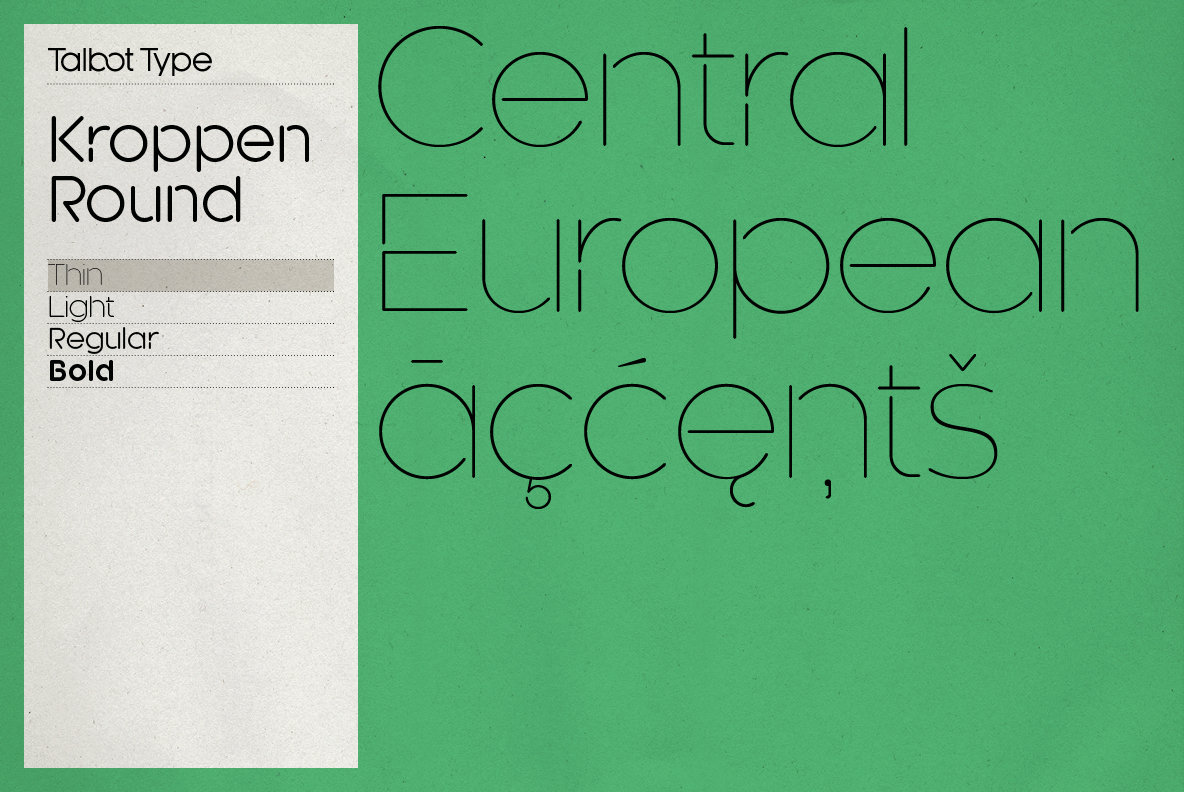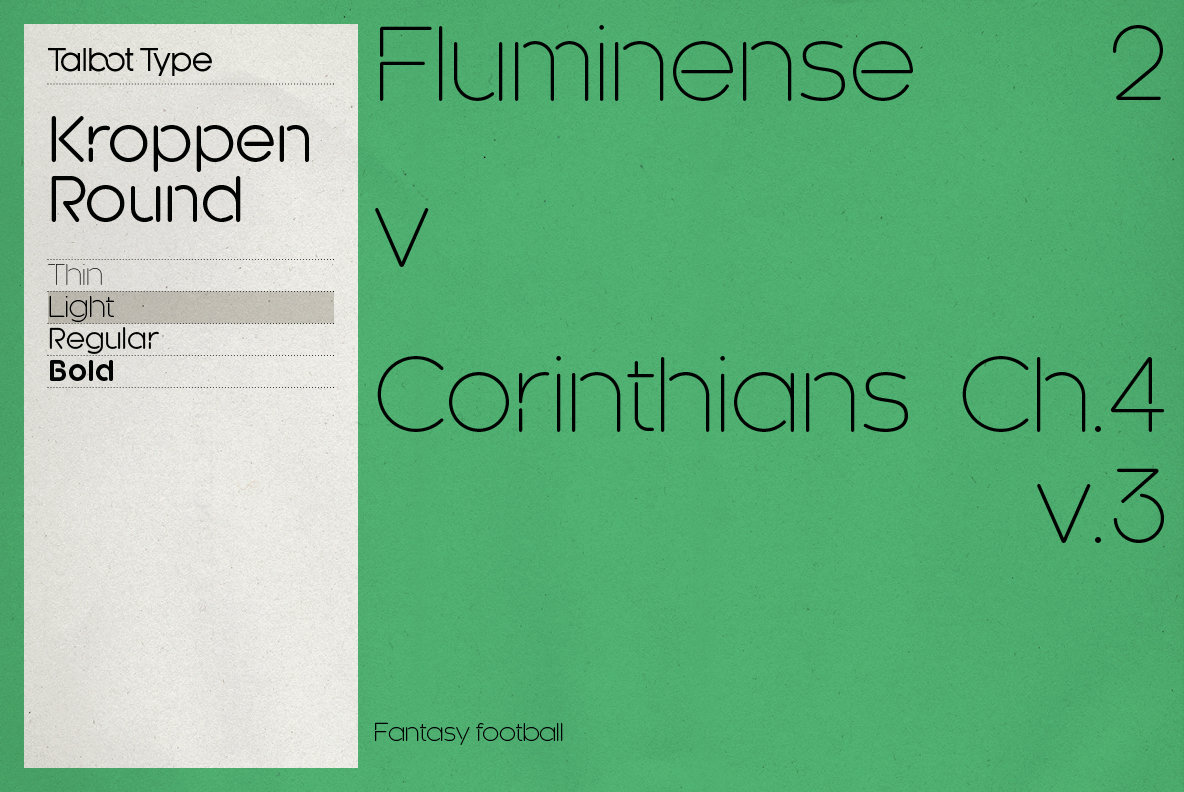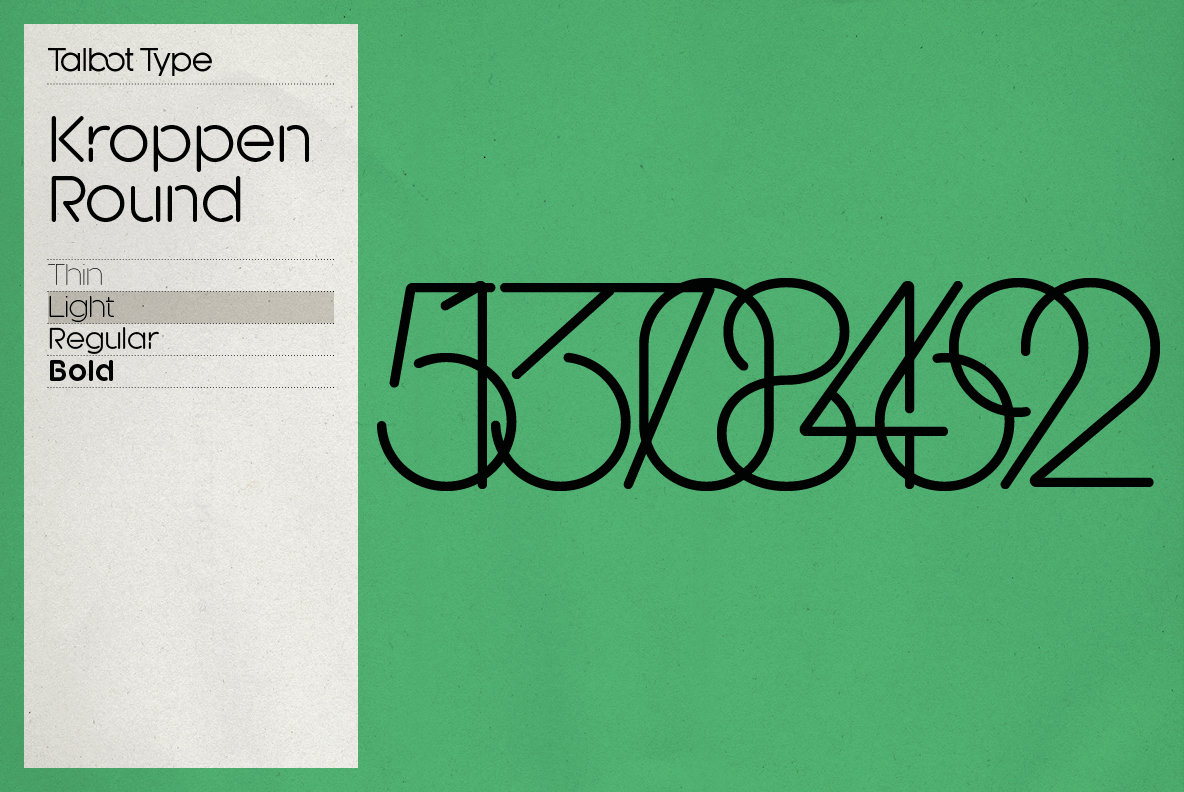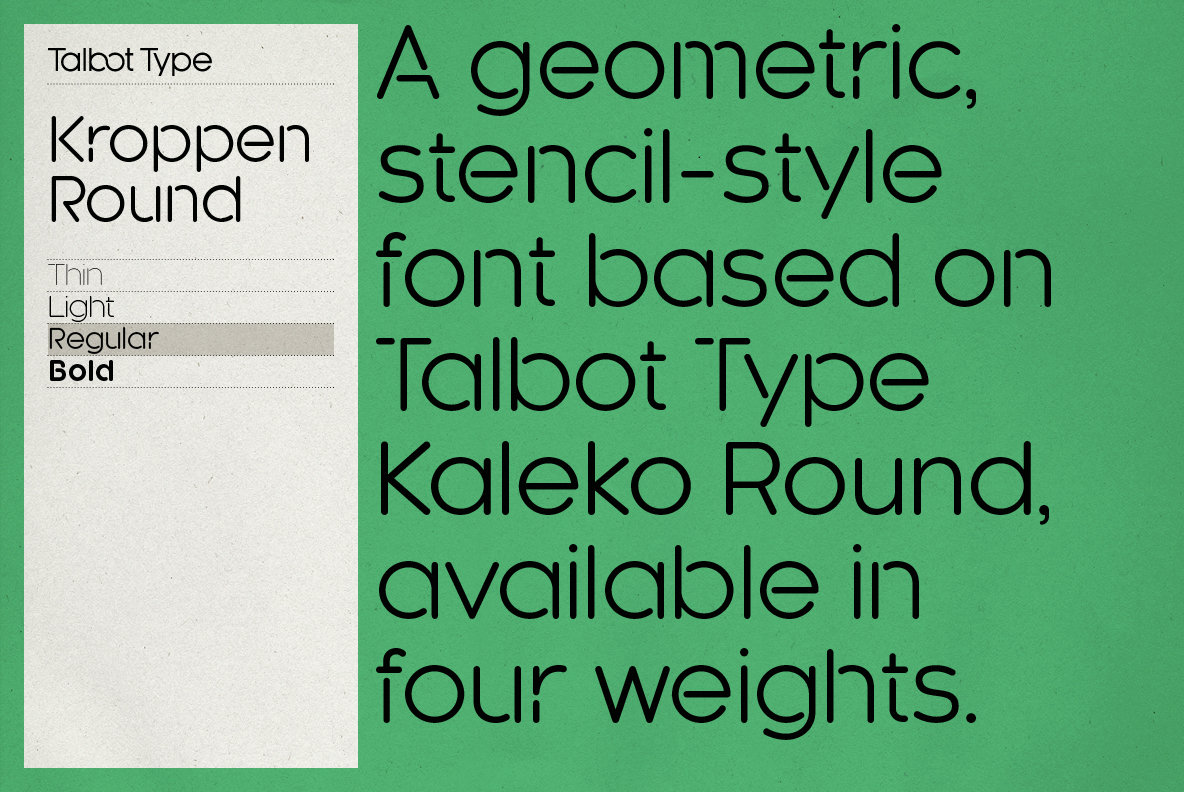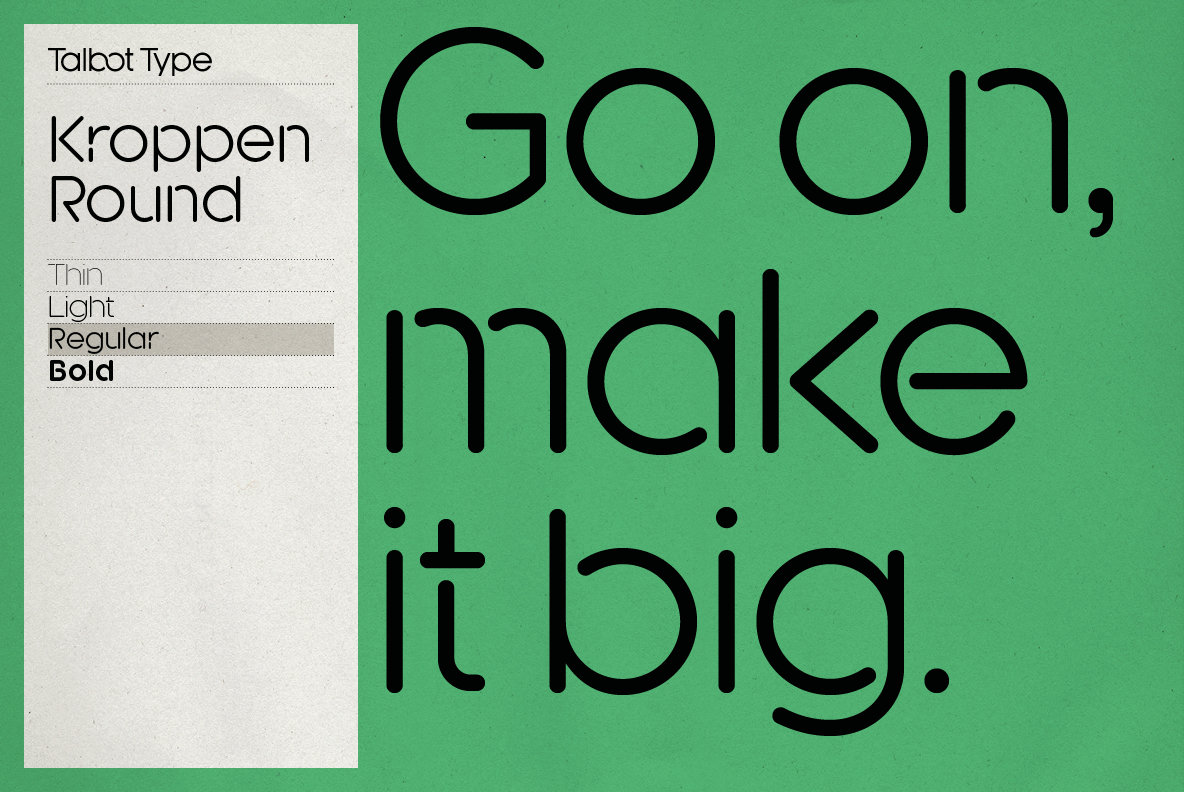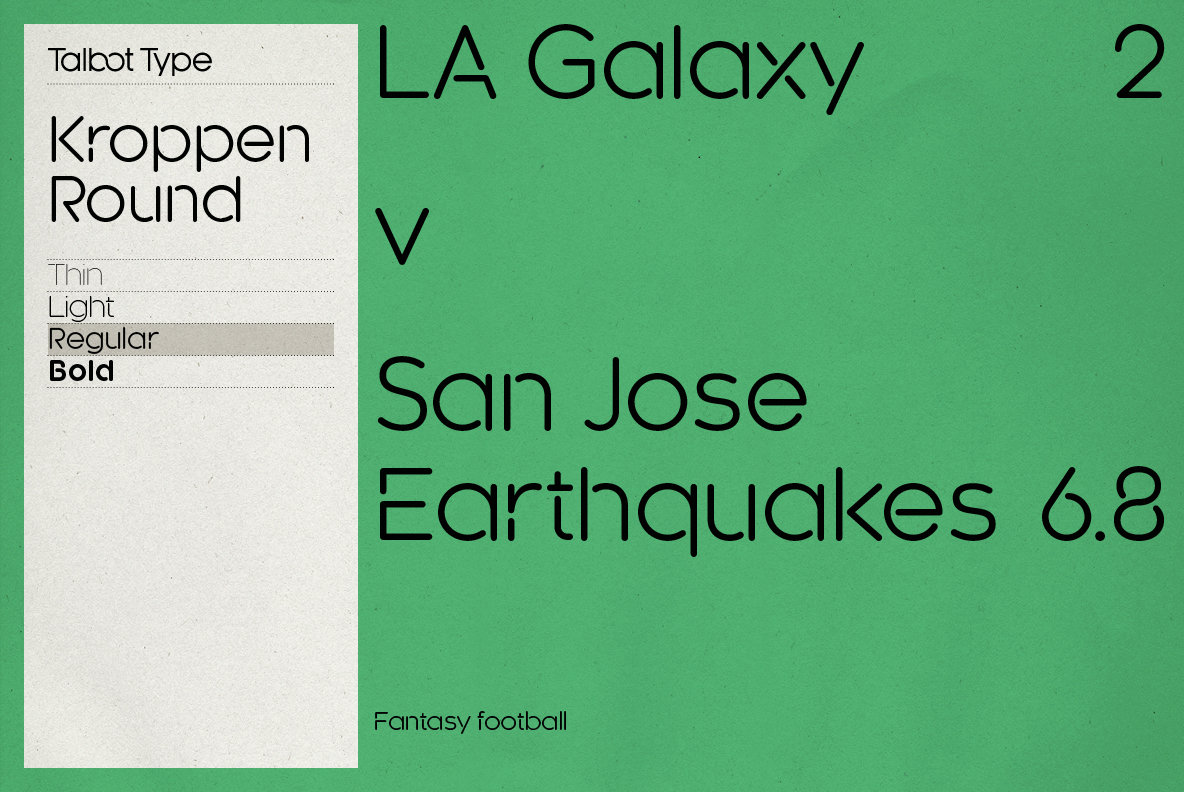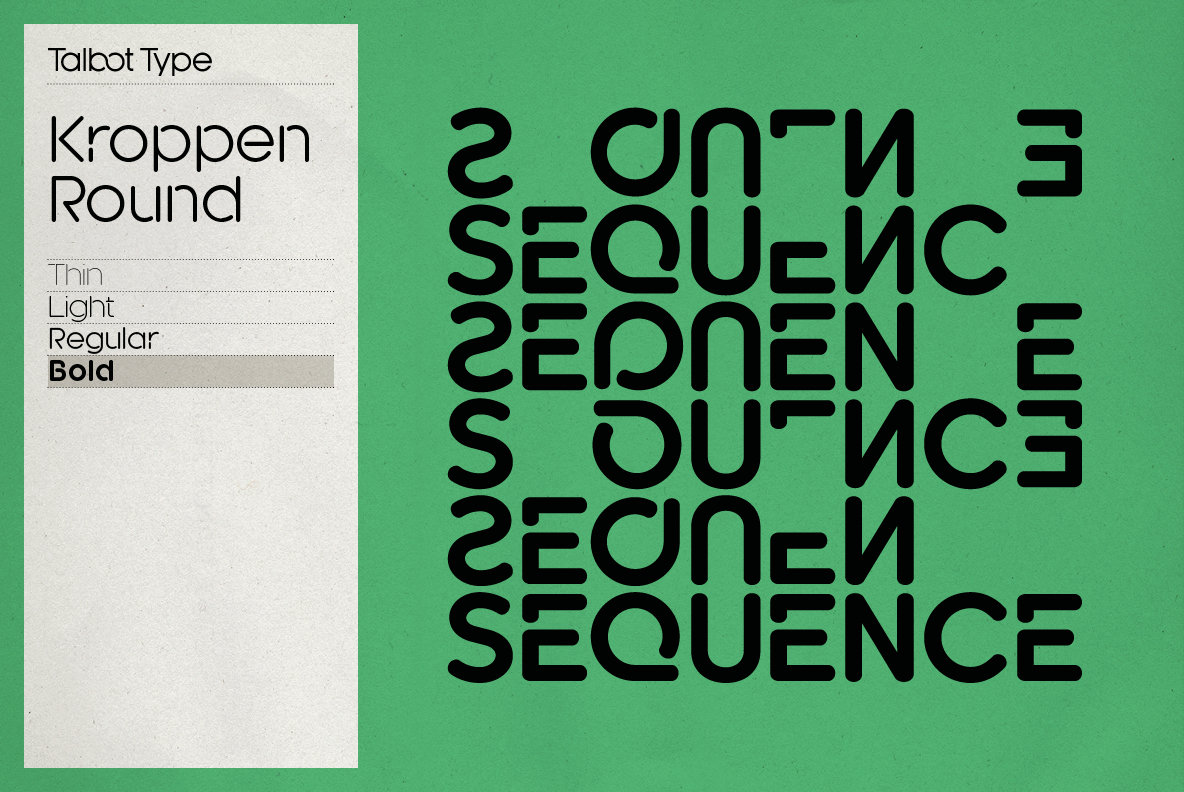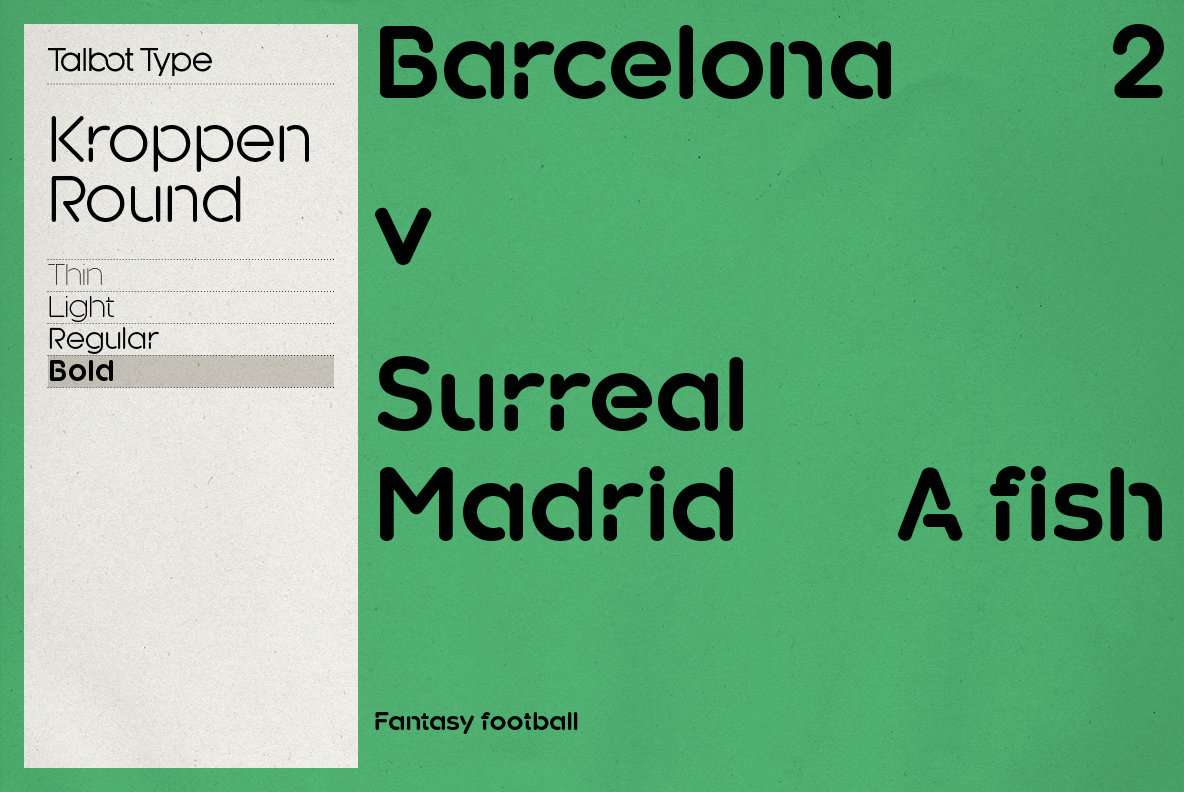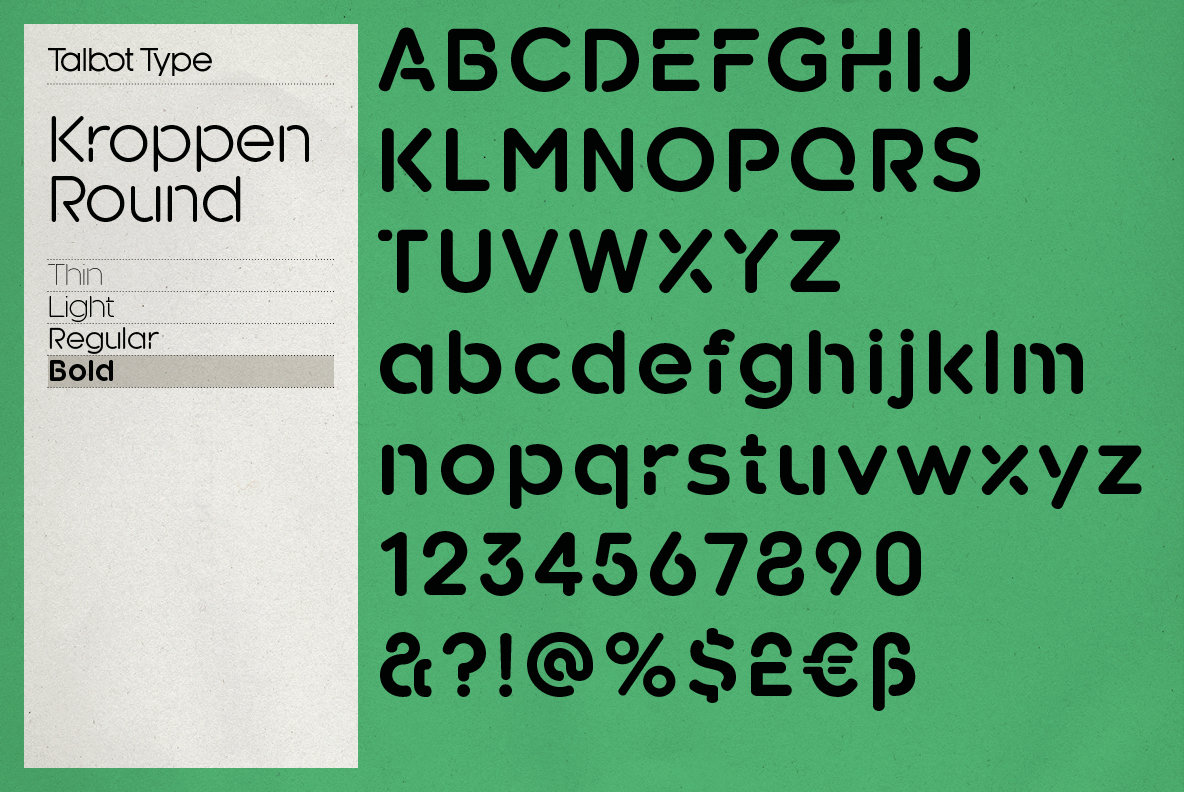
Kroppen Round Font
Kroppen Round is a geometric, stencil-style font based on Talbot Type Kaleko Round, and is available in four weights. Kroppen is not strictly a stencil font given that several characters, notably the O, are not stencilled. The design has more to do with achieving each character from a single stroke, wherever possible.